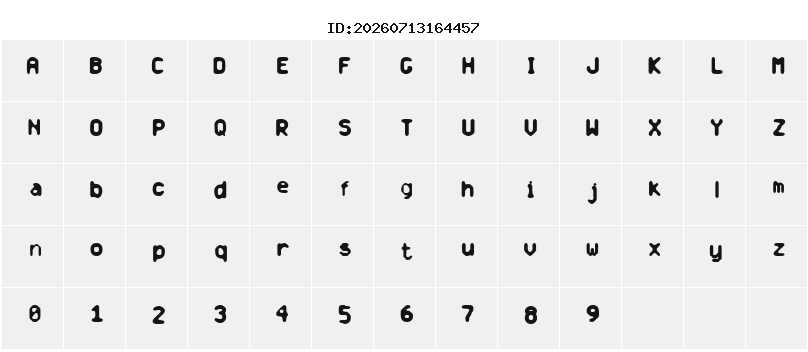
• Font Name: Banausia
• Designer: Andrew Hungerford
• Manufacturer: Liquid Nite Productions, formerly Zogoz Design
• Description: Fun, smooth, and useful.
About Banausia.ttf
Banausia.ttf is a modern, elegant sans-serif font designed for ultimate readability and visual harmony. Perfect for branding, headlines, web design, and print materials.